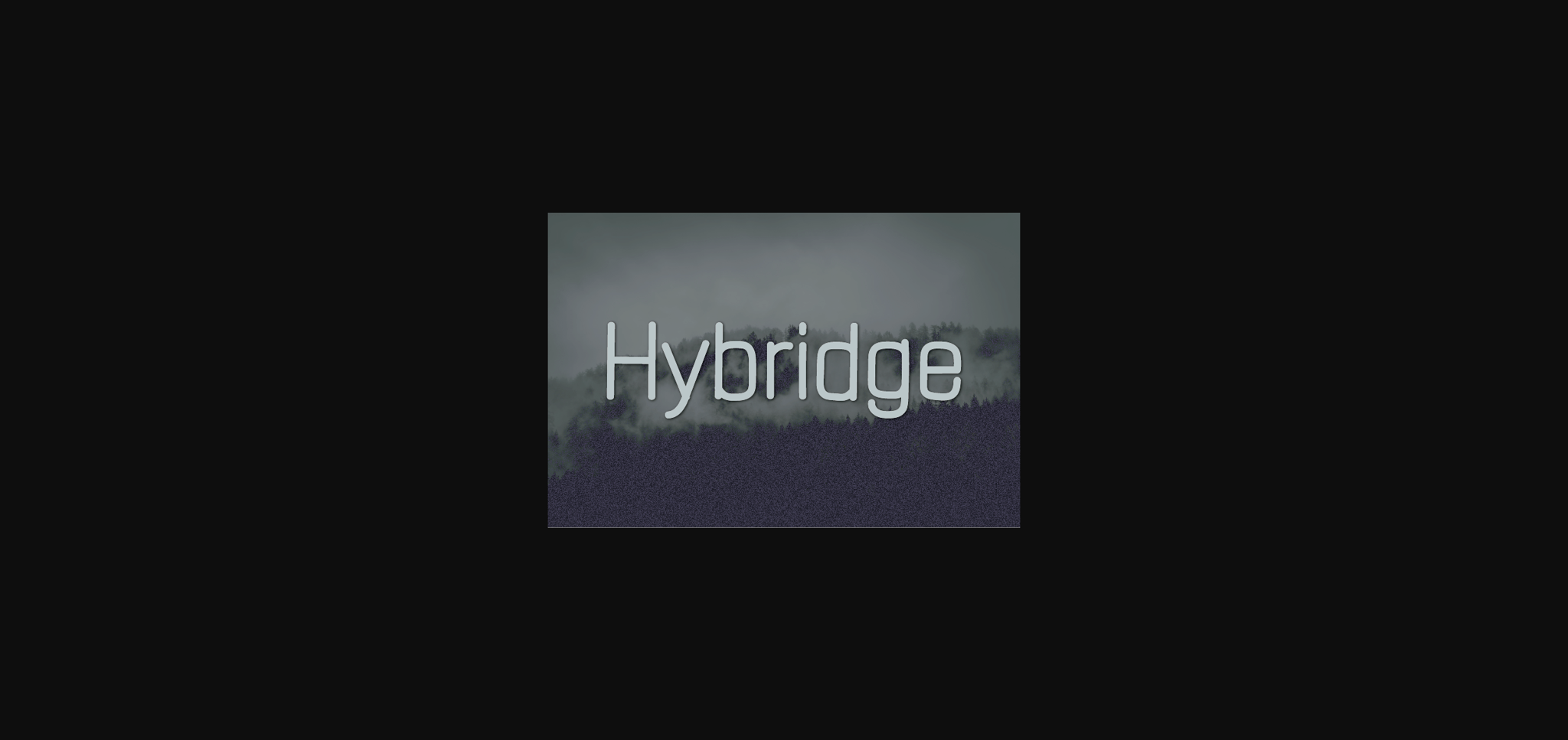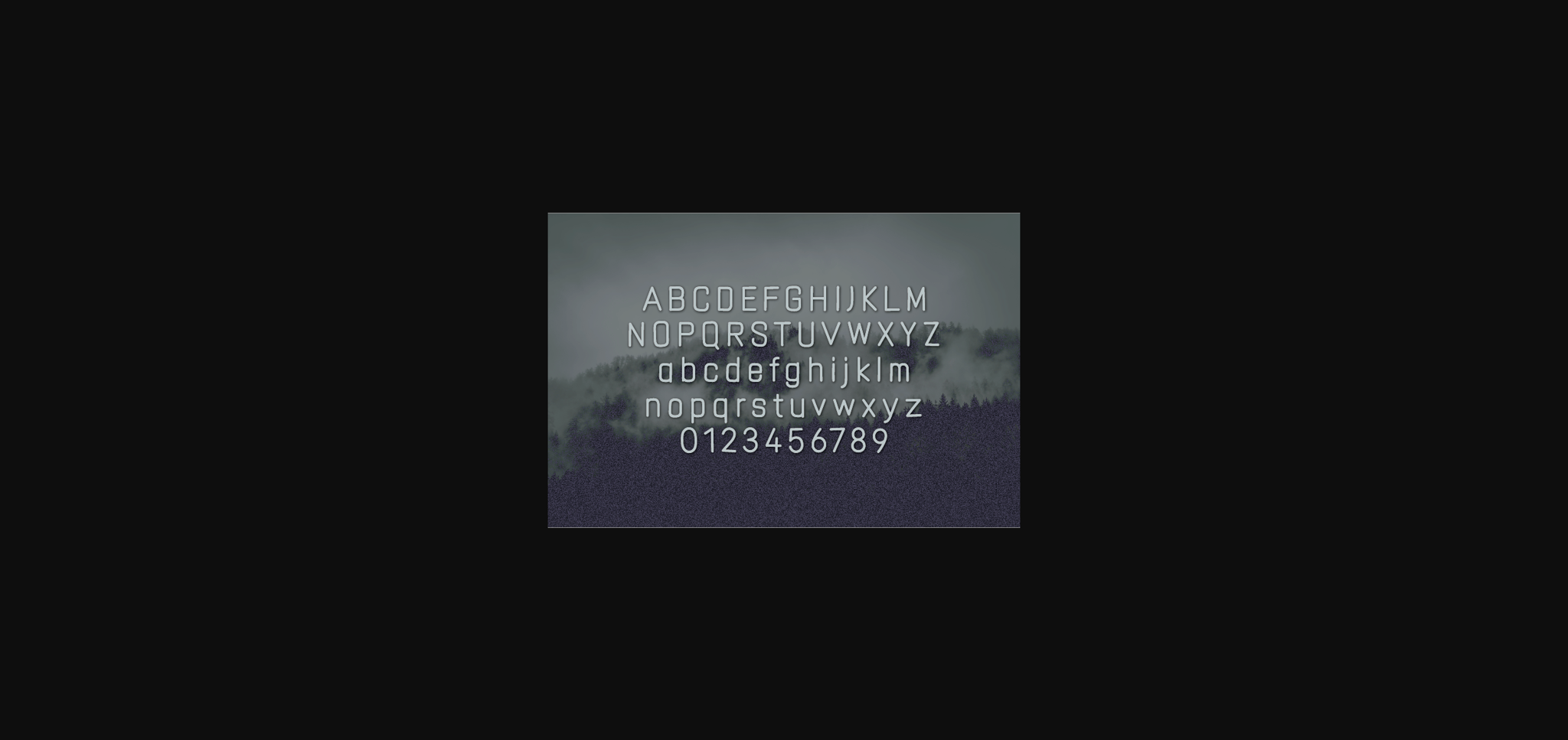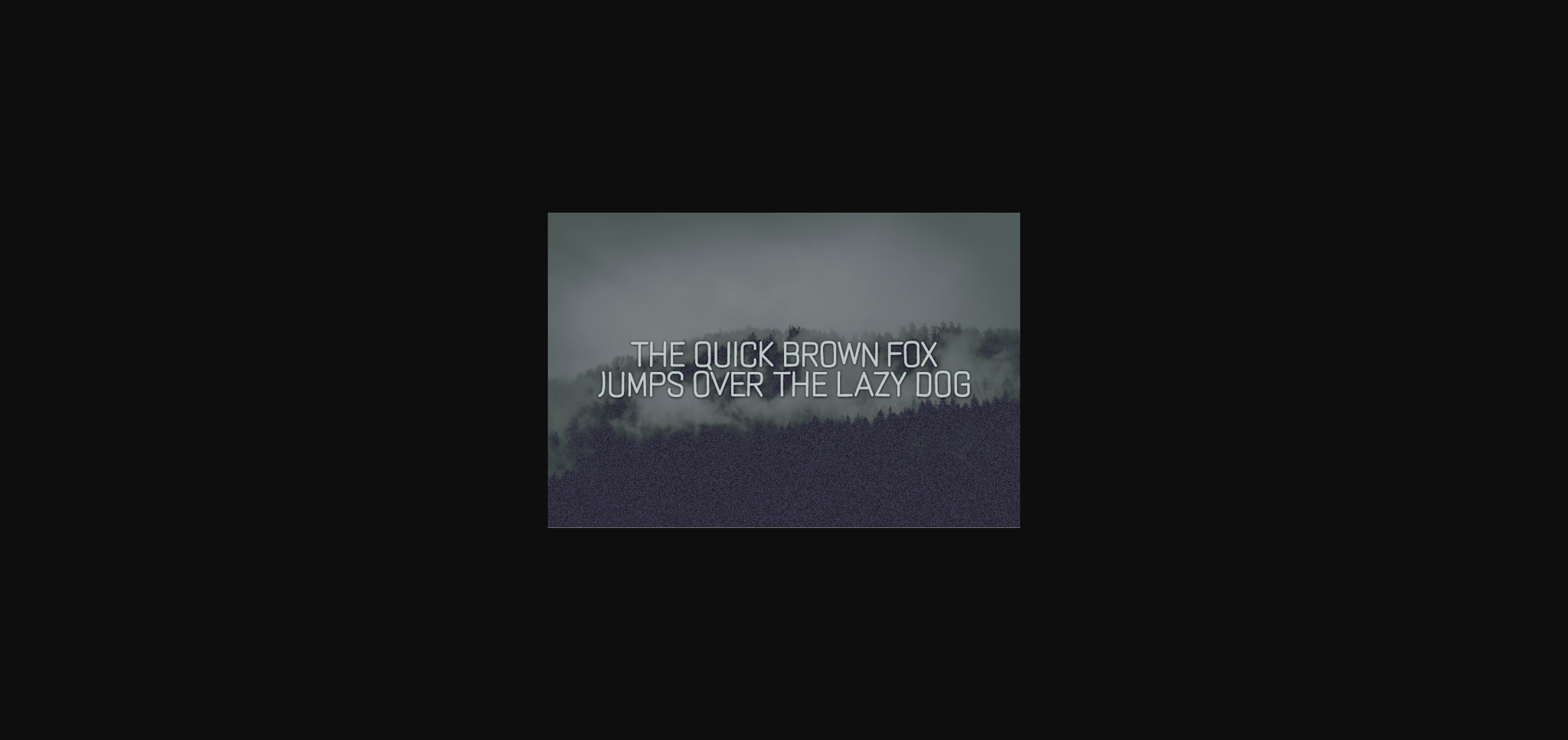
About Hybridge Font
Hybridge is a casual and neat sans serif font that impresses through its natural and elegant style. This typeface will enhance your craft with little effort, making your product stand out from the competition.